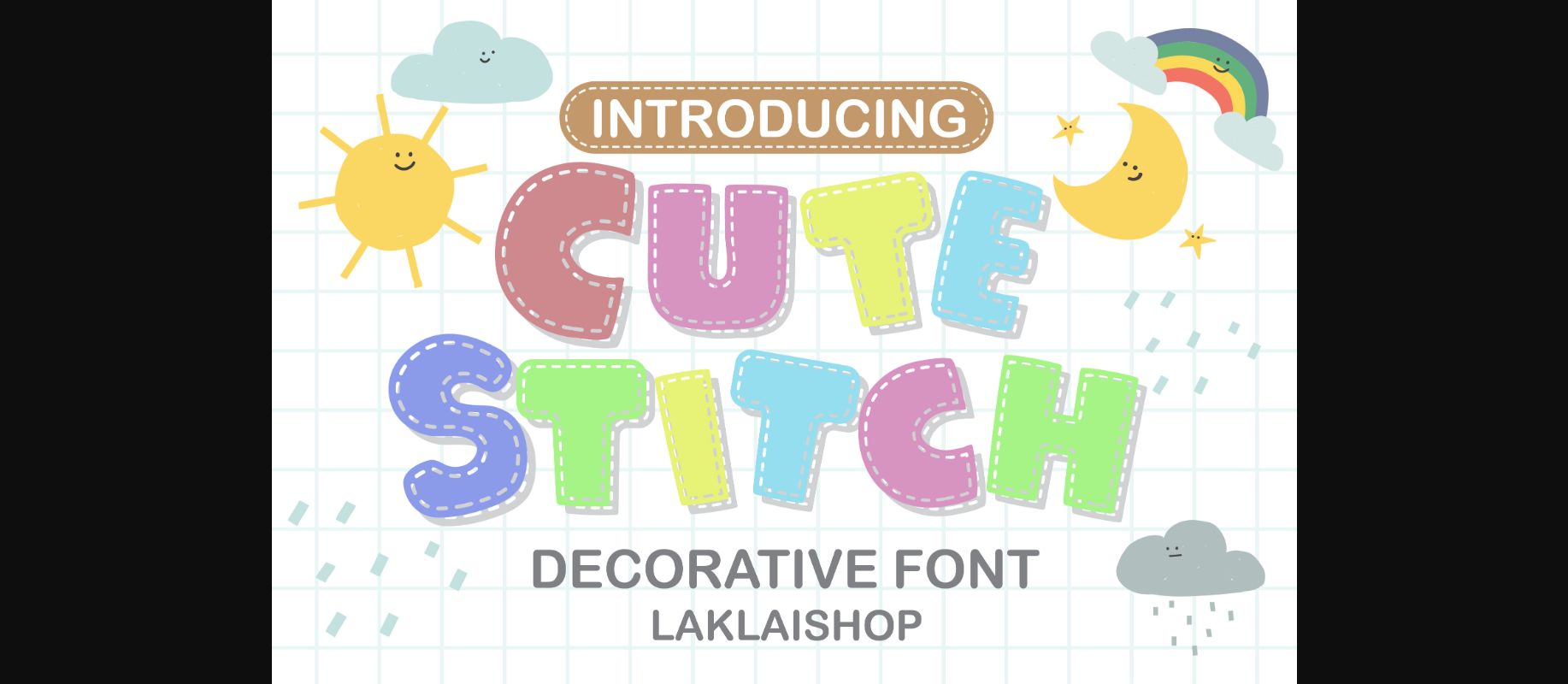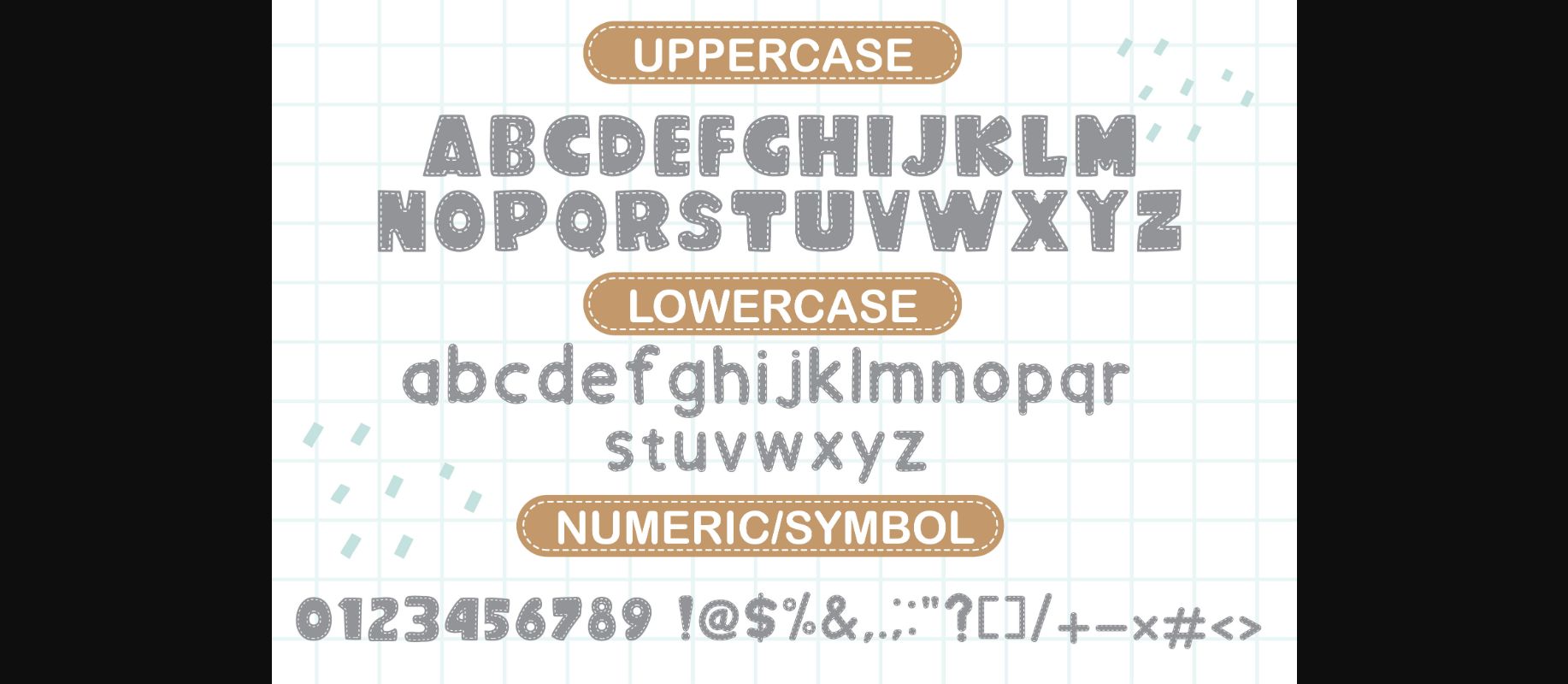
HomeDecorative FontsCute Stitch Font Decorative Fonts Cute Stitch Font FacebookTwitterPinterestWhatsApp 1 of 4 ... Cute Stitch Font Poster 2... Cute Stitch Font Poster 3... Cute Stitch Font Poster 4... About Cute Stitch Font Cute Stitch is a decorative font with a sewing texture theme, this font is very attractive with a fun and relaxed concept, this font is very suitable for designing comics, books, crafts and designs for children. DOWNLOAD NOW 116 0 People also explored Very Merry Christmas Font Estebak Font Chanide Font Rosena Font Dreamer Addict Font Bunny Boy Font Blueprint Font Klick Font The Bear Font Mermaid Summer Duo Font Pink Bella Canvas 3001 T Shirt Mockup Felicity Font TagsCute Stitch Font Previous articleWild Dogs FontNext articleBack to School Font LEAVE A REPLY Cancel reply Comment: Please enter your comment! Name:* Please enter your name here Email:* You have entered an incorrect email address! Please enter your email address here Website: Save my name, email, and website in this browser for the next time I comment. Unlock Endless Creativity with the FREE September Clipart Huge Bundle (Valued at $700!) Personal Use Free Mellow Personal Use Free Read more The Quick Personal Use Free Read more Hallo Betty Personal Use Free Read more Awesome Snowflakes Font Personal Use Free Read more BLOG Free Fonts Risk: Why Free Fonts Can Be Dangerous for Designers Free Fonts Risk: Why Free Fonts Can Be Dangerous for Designers Using free fonts is a common practice in web and graphic design. However, the... Transform Your Website: Elevate Your Typography with 7 Best Web Font Generators Using Fonts in Digital Marketing: Tips to Strengthen Your Brand Identity To increase your work productivity, choose the most readable fonts.